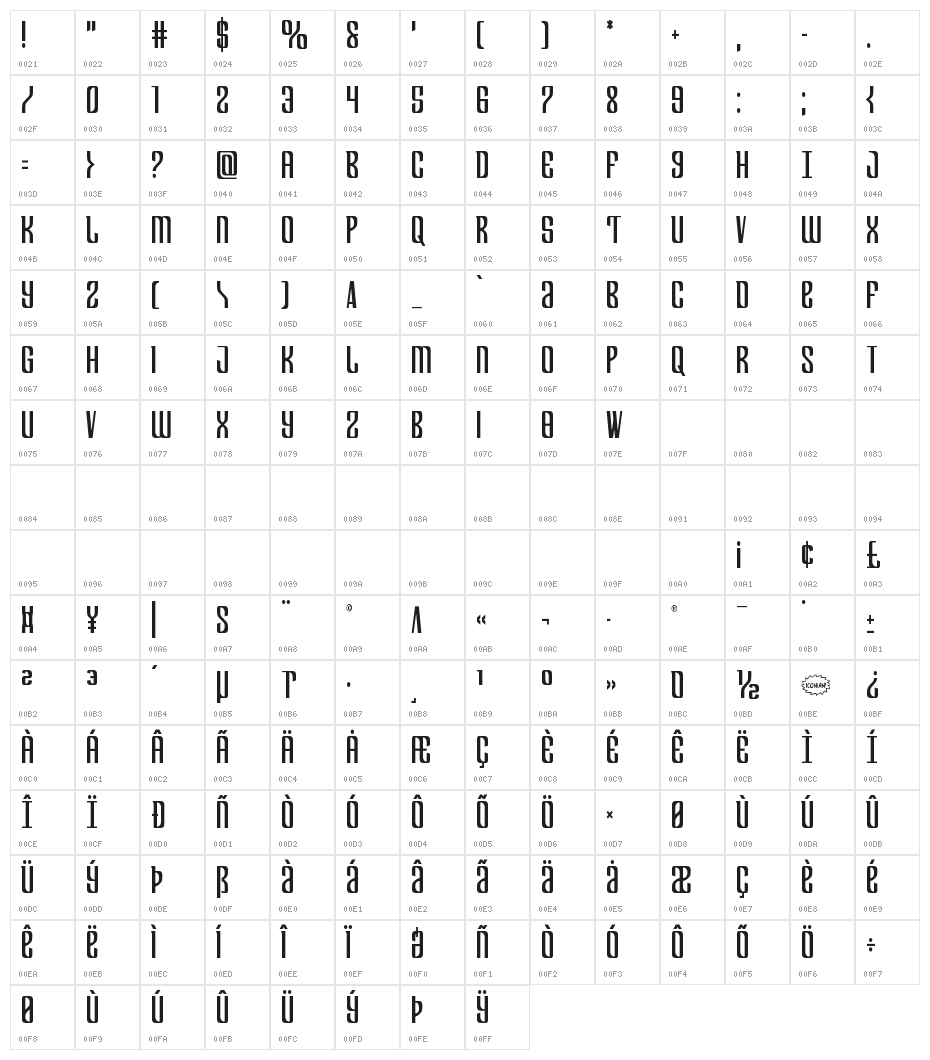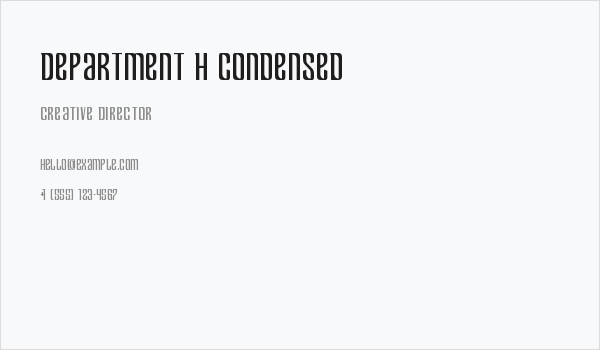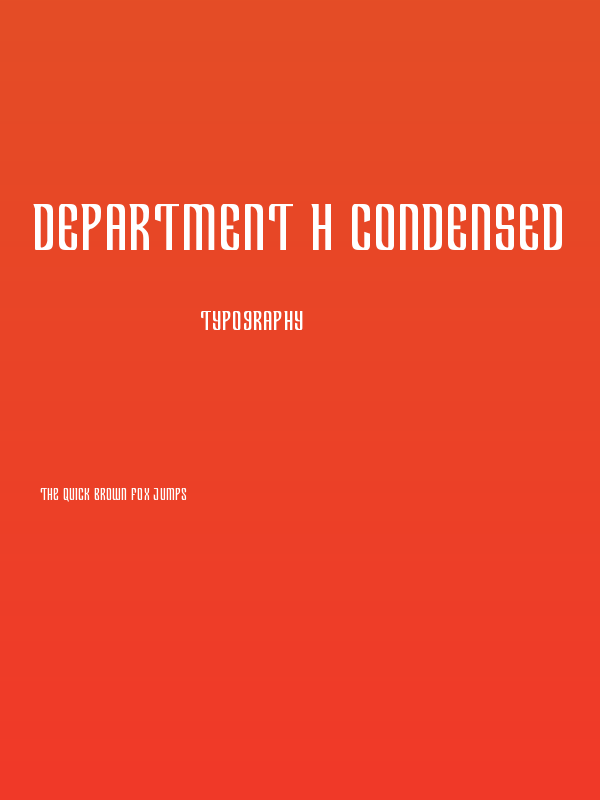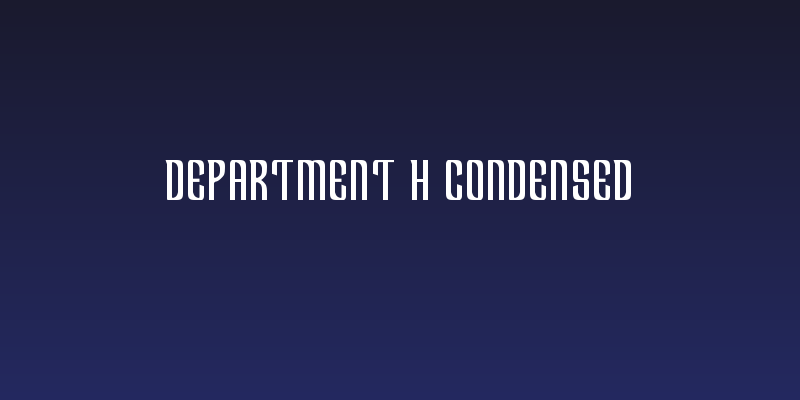
Department H Condensed Font
Department H Condensed Description
This font features a bold and condensed style, characterized by its tall and narrow letterforms. The uppercase letters are particularly striking, with a strong vertical emphasis and minimal serifs, giving it a modern and industrial appearance. The lowercase letters maintain the same condensed structure, ensuring consistency across the typeface. The numerals are equally bold, with a uniform height that aligns with the uppercase letters, enhancing readability. Special characters are designed with the same condensed and bold style, making them stand out while maintaining harmony with the rest of the font. This typeface is ideal for creating impactful headlines and attention-grabbing designs.
| Proposed Projects | Ideal for posters, branding, and editorial design where a strong visual impact is needed. |